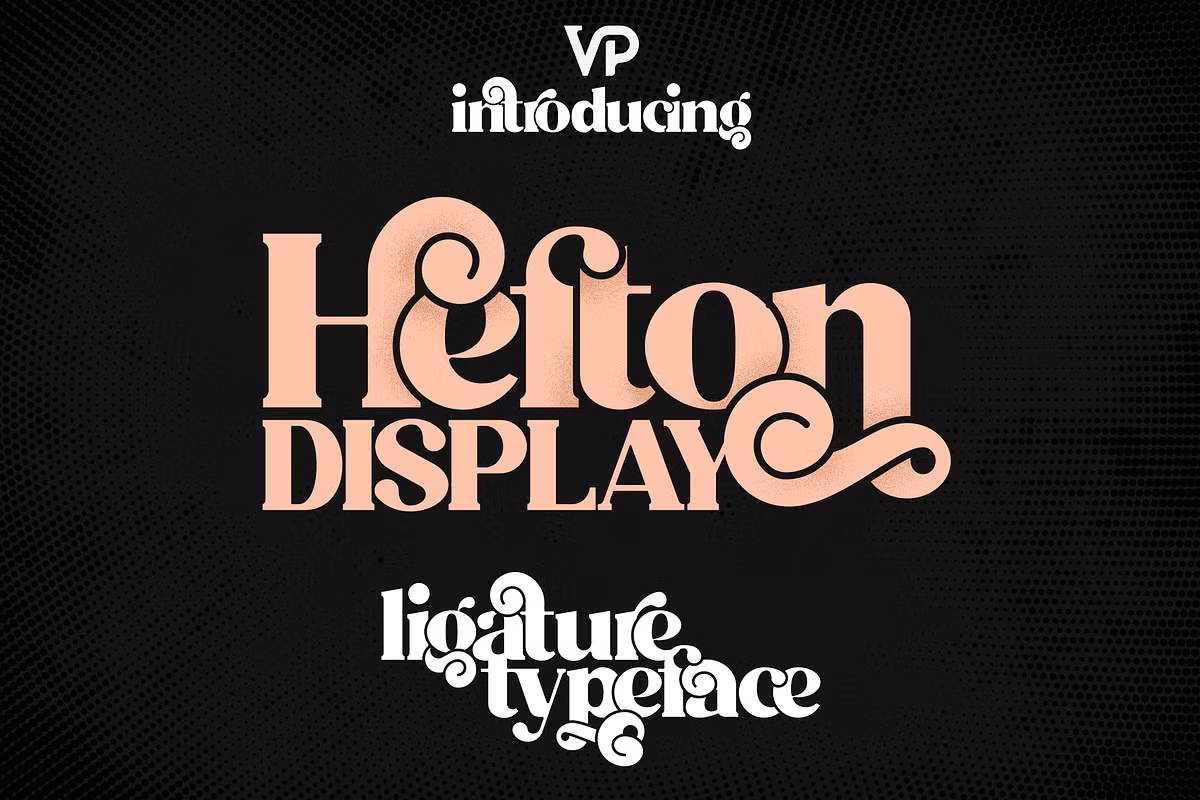
Hefton – Ligature Display Typeface Free Download is a modern and stylish display font that includes beautiful ligatures for a more connected and flowing typographic experience. With its unique and expressive letterforms, this font is perfect for headlines, logos, branding, posters, and creative digital content that needs an elegant yet bold touch.
Hefton – Ligature Display Typeface Free Download combines clean lines and artistic ligatures to create a refined, contemporary design with a personal feel, making it ideal for projects that demand a creative, polished look.